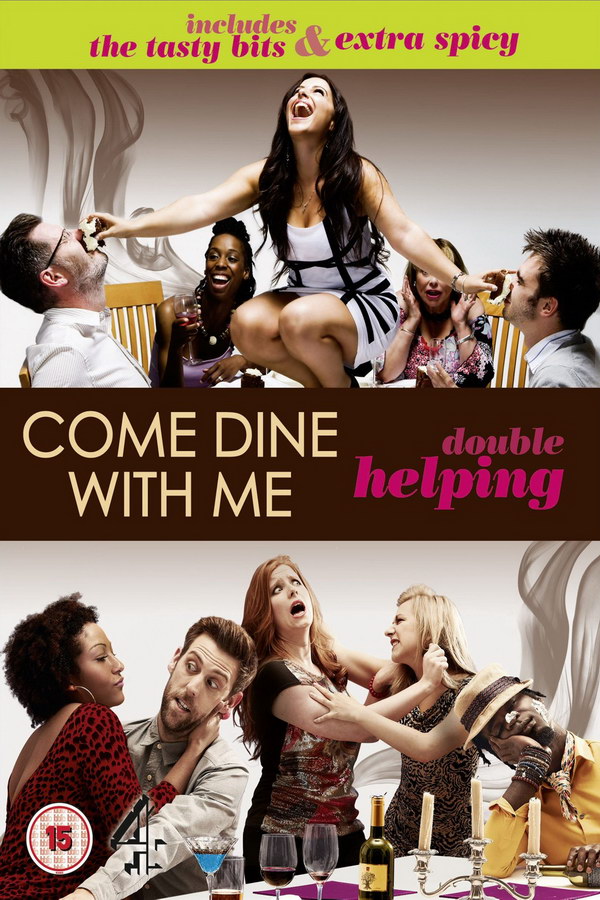
Come Dine with Me Font
Fonts in UseCome Dine with Me is a reality TV series where contestants take turns hosting dinner parties for each other and rating the experience. The show originated in the UK in 2005 and has since been adapted in many countries around the world.
The TV series title is most likely written in Century Gothic Regular, a sans-serif font that was created by Monotype Imaging in 1991 with a geometric design. You can learn more about the font here.